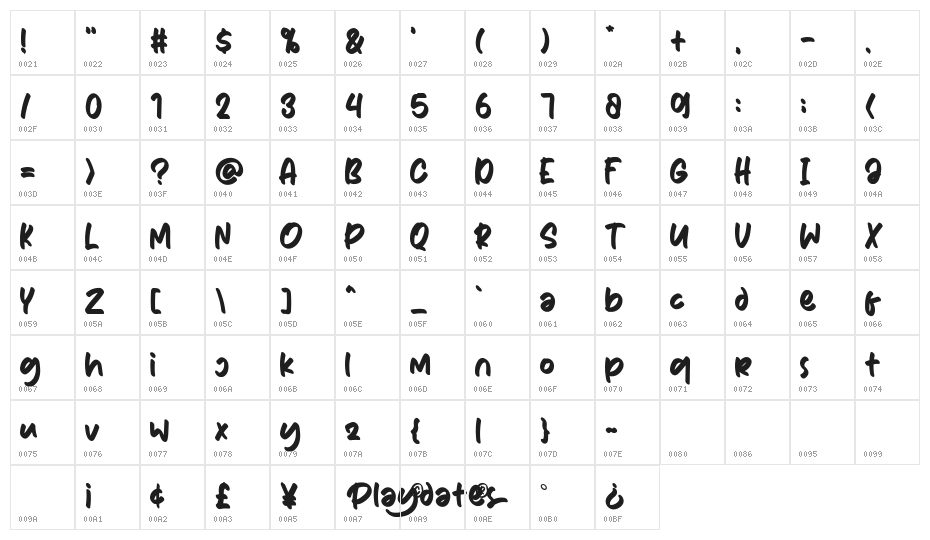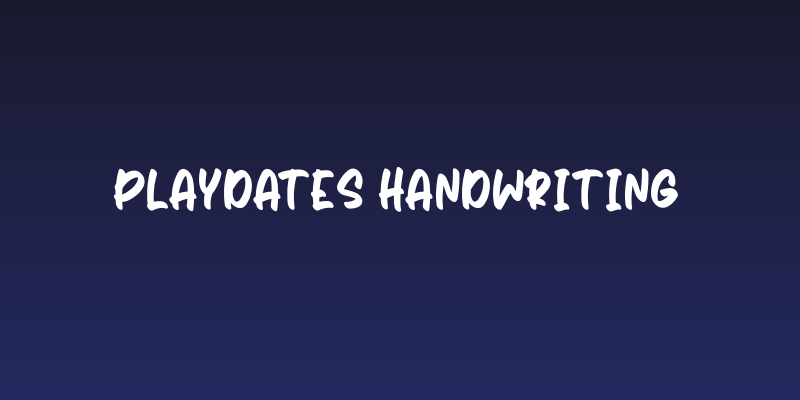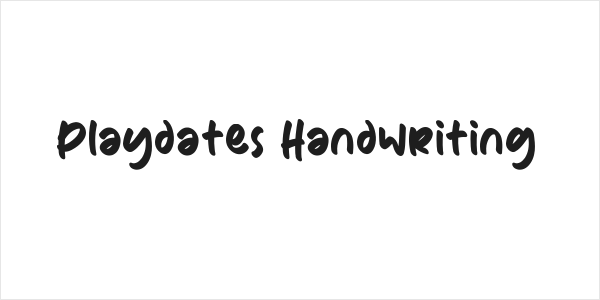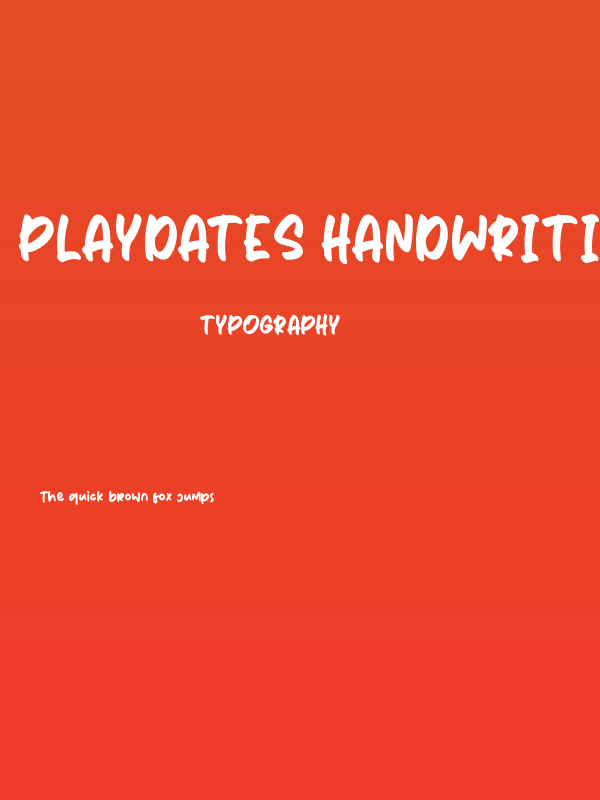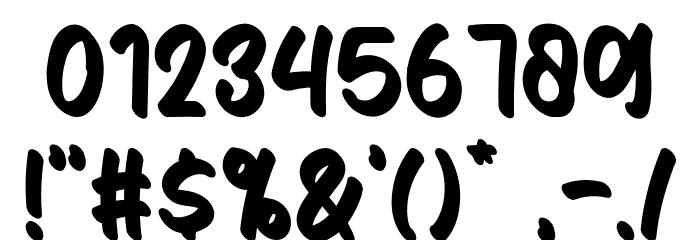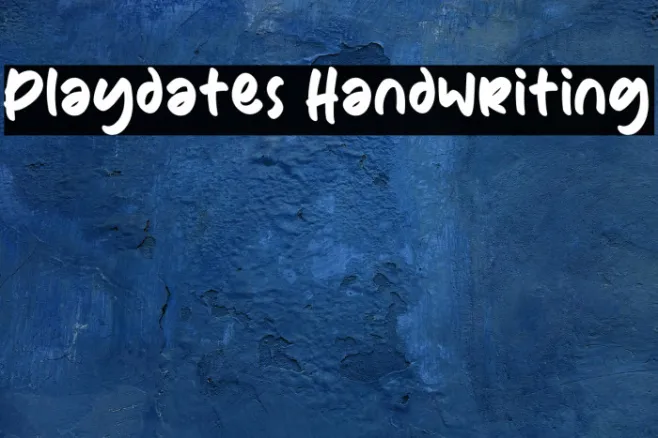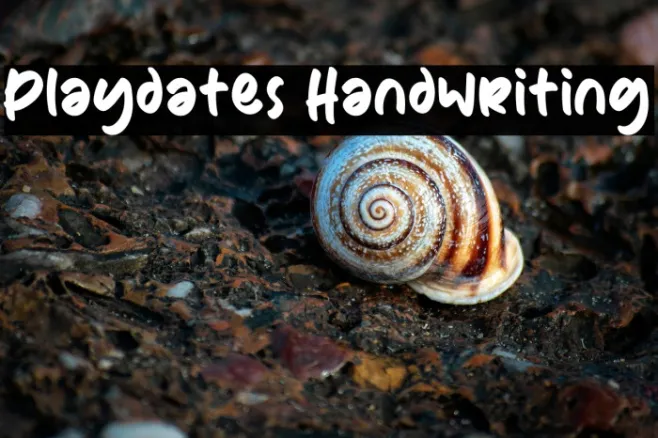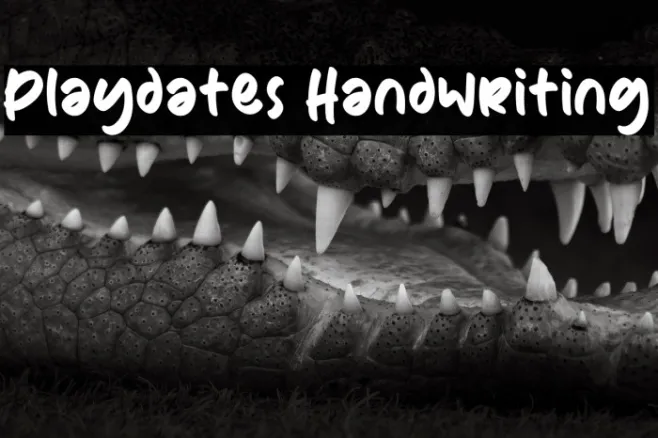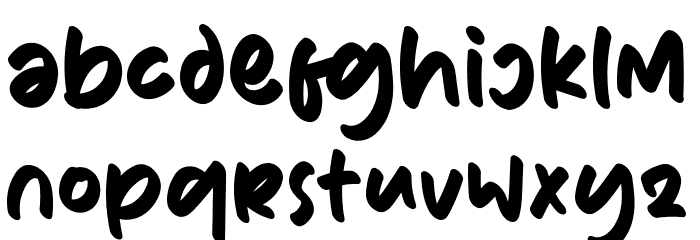
Playdates Handwriting Font
Playdates Handwriting Description
This playful and energetic font captures the essence of casual handwriting with its bold and rounded strokes. Each character is crafted with a sense of spontaneity, giving it a lively and approachable feel. The letters are slightly slanted, adding to the informal and friendly vibe. The font maintains a consistent thickness throughout, ensuring readability while retaining its whimsical charm. Its unique style makes it ideal for projects that require a personal touch, such as children's books, playful branding, or creative invitations.
| Overall Style | Playful, Casual |
| Proposed Projects | Ideal for children's books, playful branding, creative invitations, and casual social media graphics. |